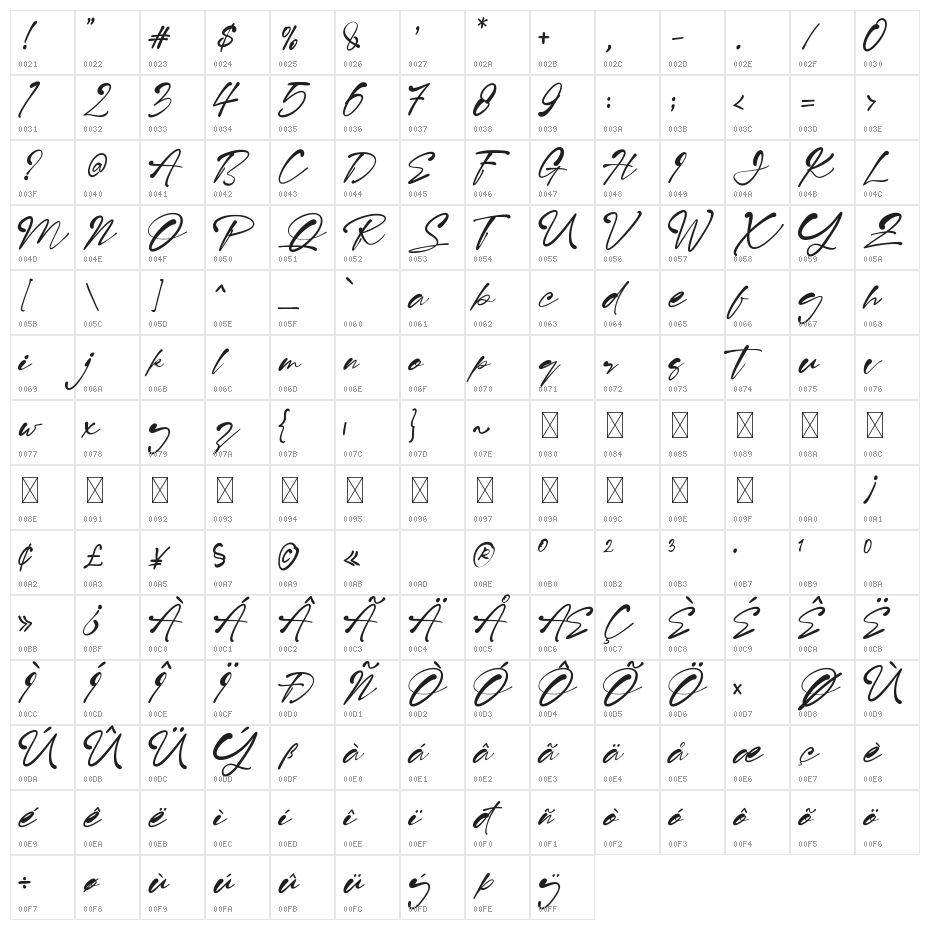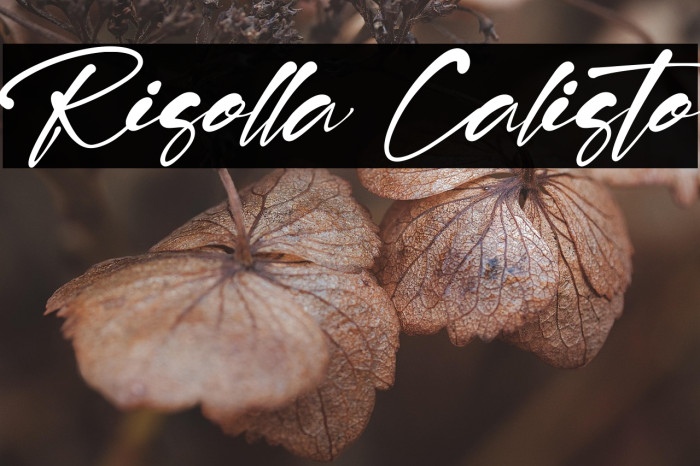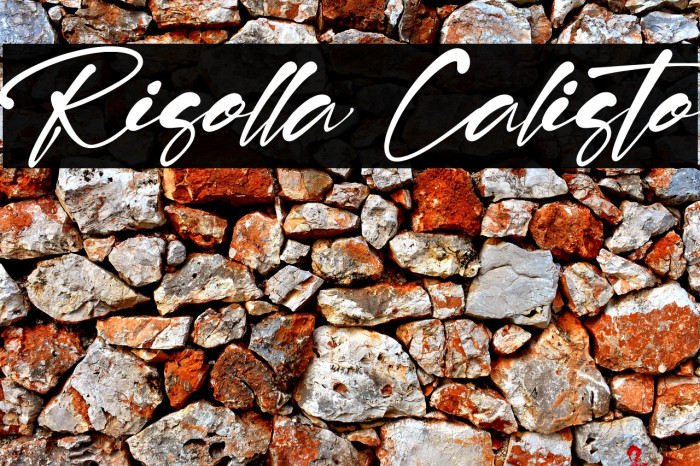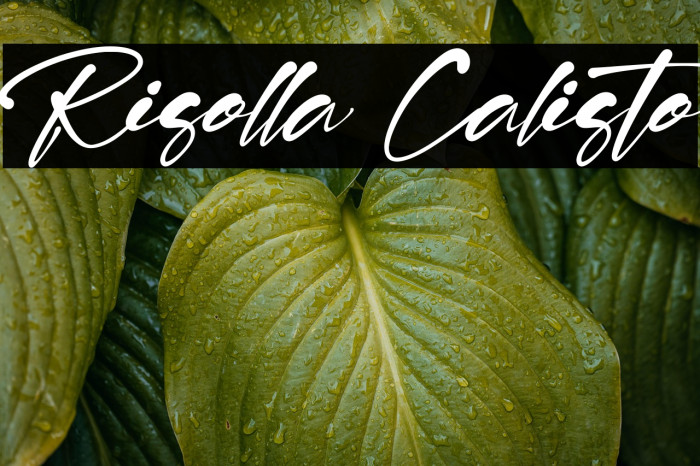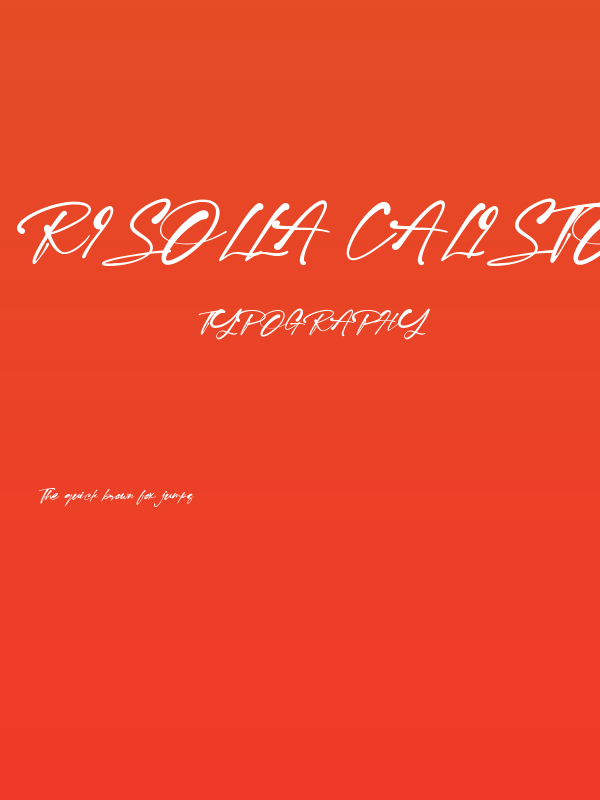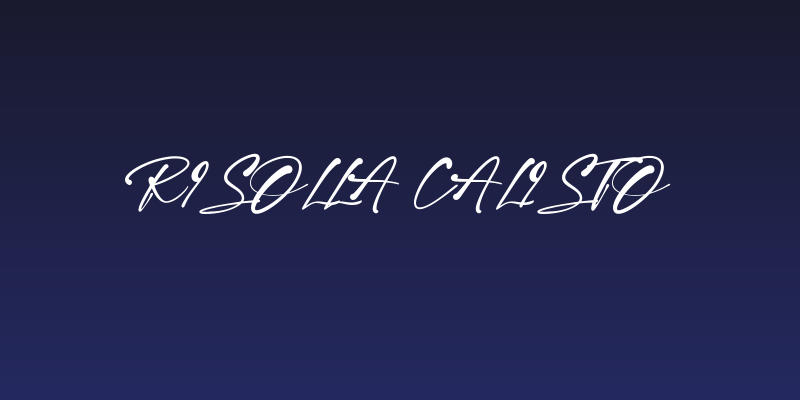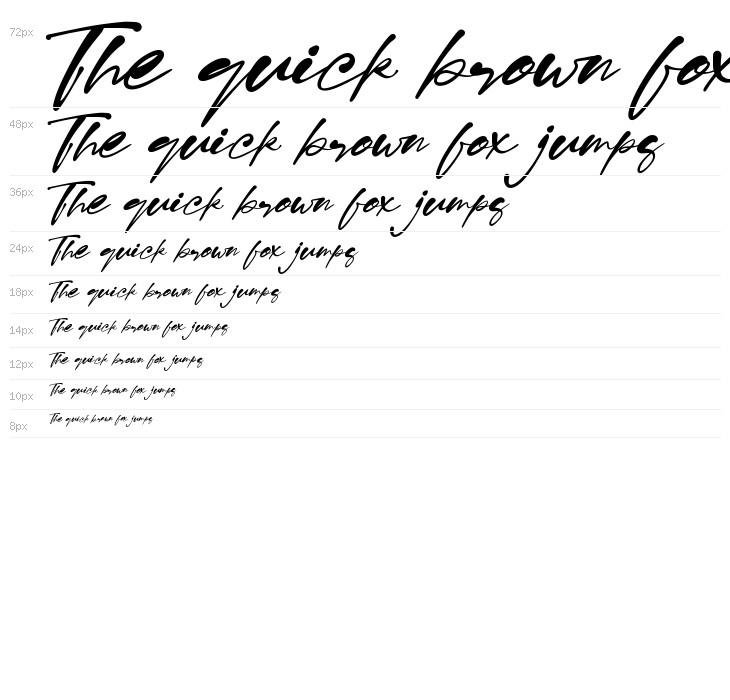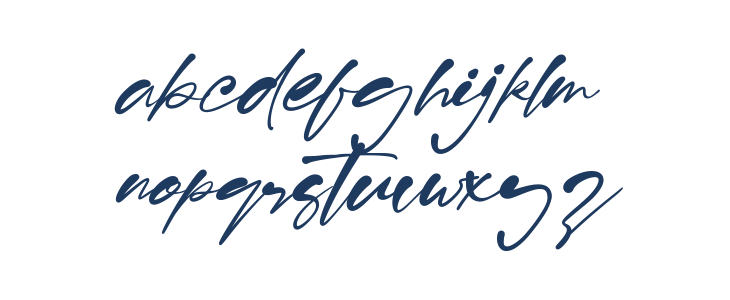
Risolla Calisto Font
Risolla Calisto Description
This font exudes a dynamic and fluid style, characterized by its cursive and handwritten appearance. The letters are elegantly connected, creating a sense of movement and grace. The uppercase letters maintain a consistent height, while the lowercase letters vary slightly, adding to the organic feel. The numerals and special characters are crafted with the same flowing strokes, ensuring uniformity across the font. Its overall aesthetic is both sophisticated and approachable, making it suitable for a variety of creative applications.